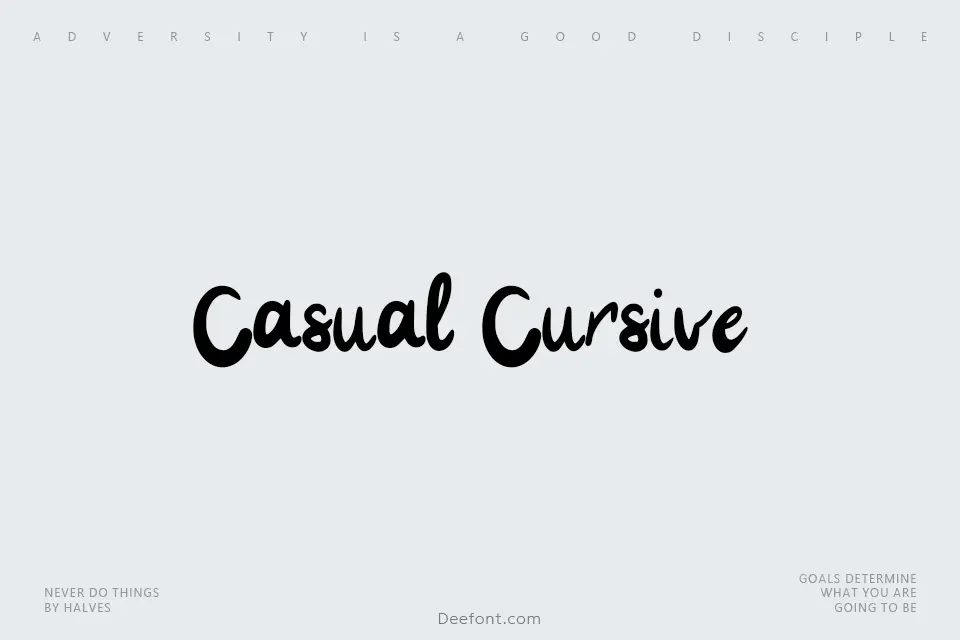
Casual Cursive Font
Casual Cursive is a bold, handwritten script font with smooth curves, rounded terminals, and a relaxed, informal rhythm that feels like natural marker lettering. Its playful yet legible strokes make it ideal for eye-catching logos, greeting cards, wedding invitations, packaging, quote graphics, and social media posts. Use this casual cursive style to add warmth, personality, and a friendly, handwritten touch to lifestyle, DIY, and small business branding projects.